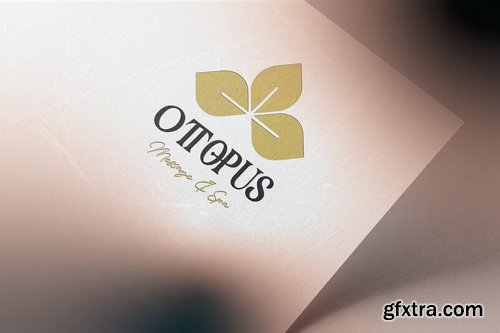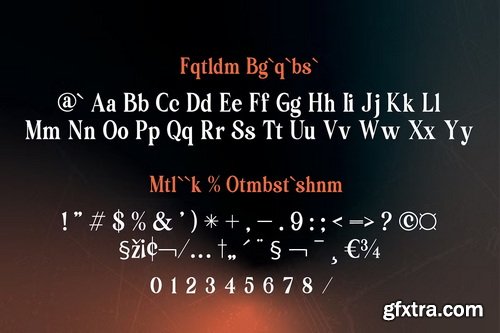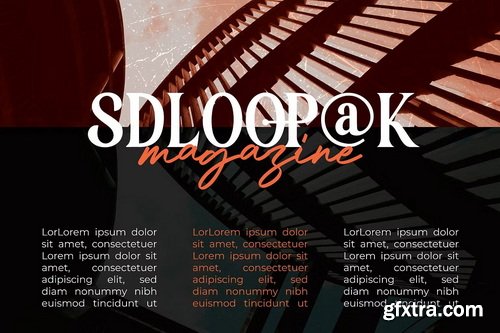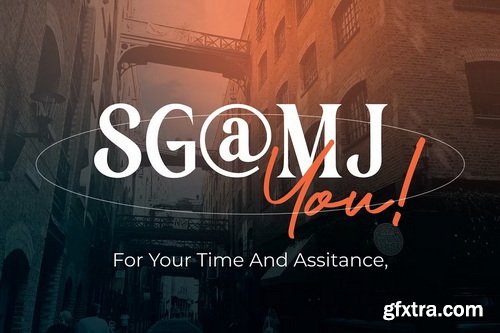
Grumen Caliphia is a sophisticated font duo that seamlessly combines a bold, refined serif with an elegant, flowing script. This pair creates a striking balance between modern aesthetics and timeless elegance, making it ideal for branding, invitations, packaging, and creative projects that demand a polished and versatile design.